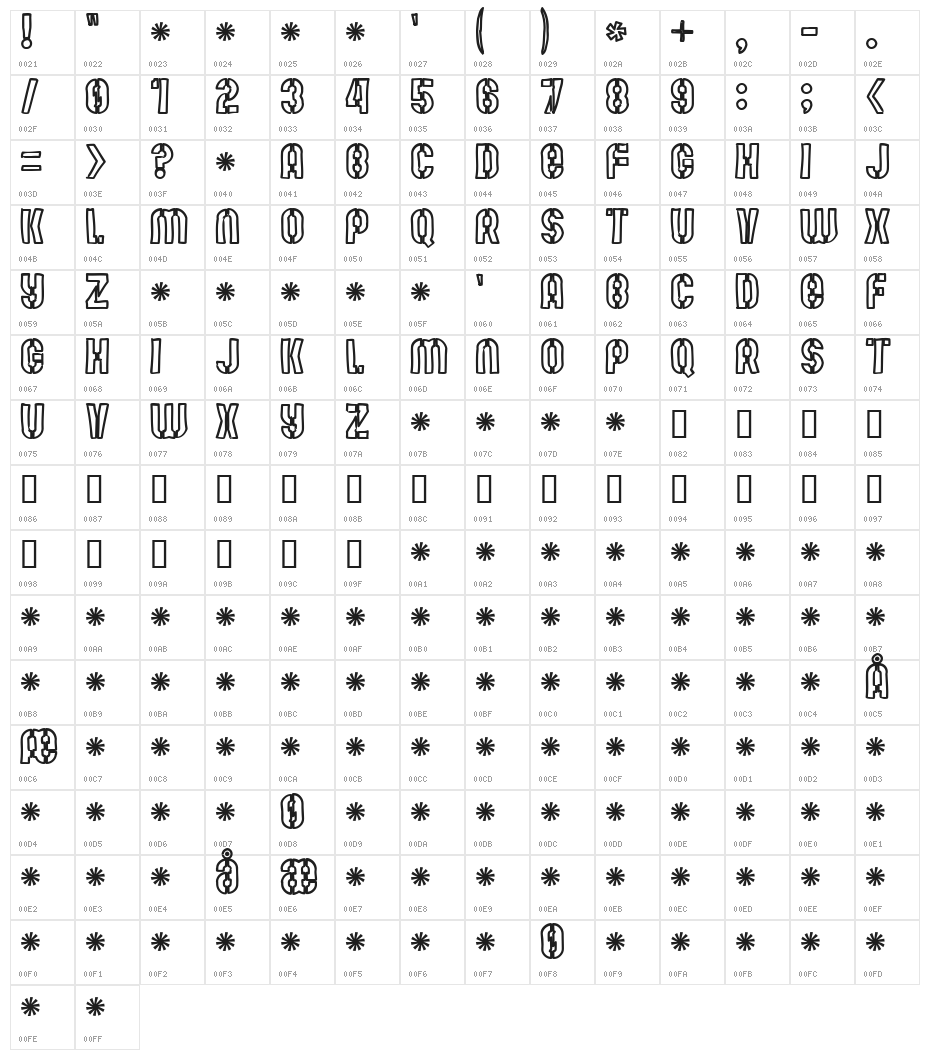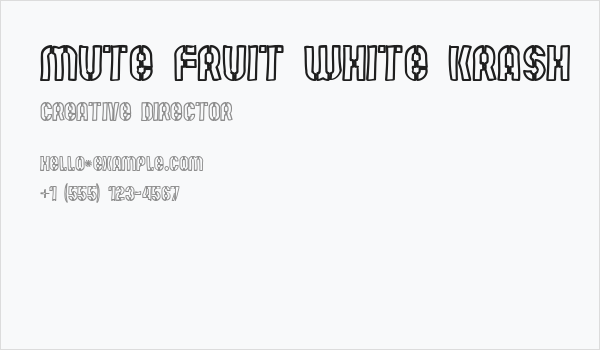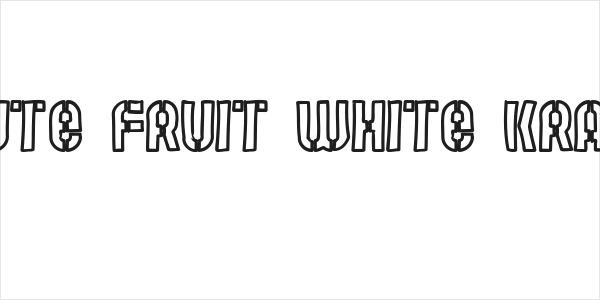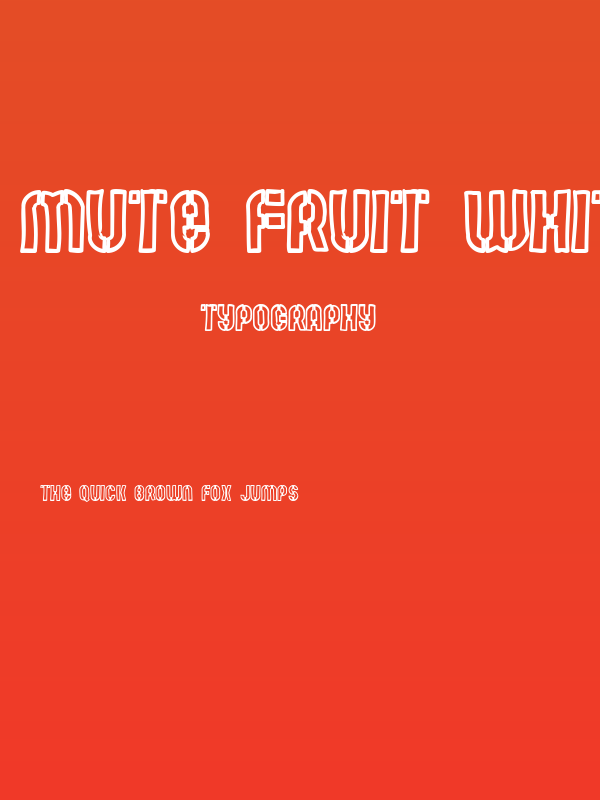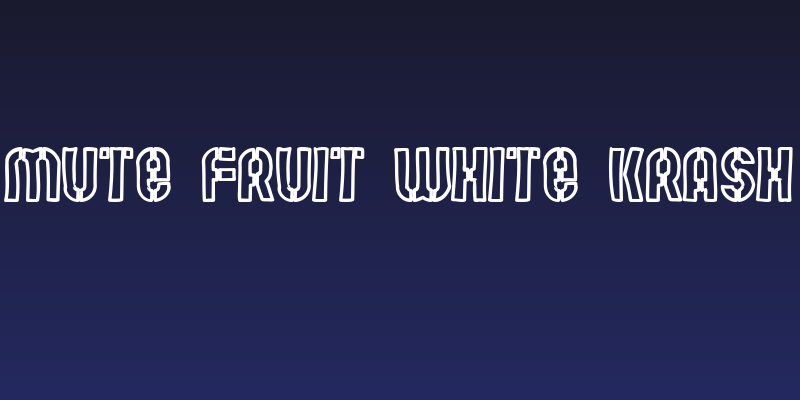
Mute Fruit White Krash Font
Mute Fruit White Krash Description
This font features a bold, outlined style with a playful and modern aesthetic. Each character is designed with a thick, uniform outline that gives it a three-dimensional appearance. The letters are uppercase and lowercase, with numbers and a variety of special characters included. The design is consistent across all characters, maintaining a cohesive look. The font's style is eye-catching and dynamic, making it suitable for projects that require a strong visual impact. Its unique design elements make it stand out, while still being legible and versatile.
| Proposed Projects | Ideal for posters, logos, headlines, and any design project that requires a bold and modern look. |